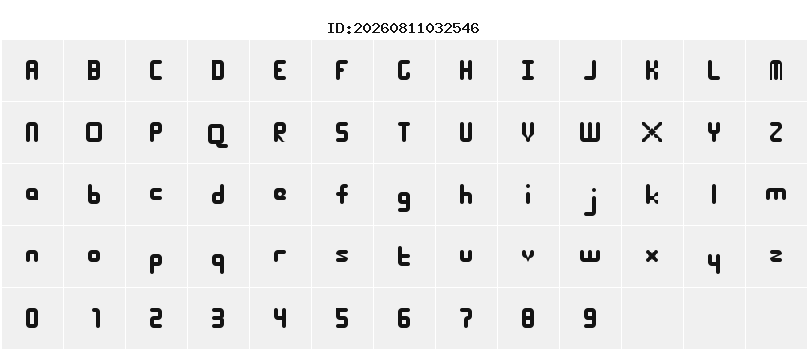
• Font Name: Roundy
• Designer: GuyStruct
• Description: ‚ÄúRoundy‚Äù was built with FontStruct
About Roundy.ttf
Roundy.ttf is a modern, elegant sans-serif font designed for ultimate readability and visual harmony. Perfect for branding, headlines, web design, and print materials.